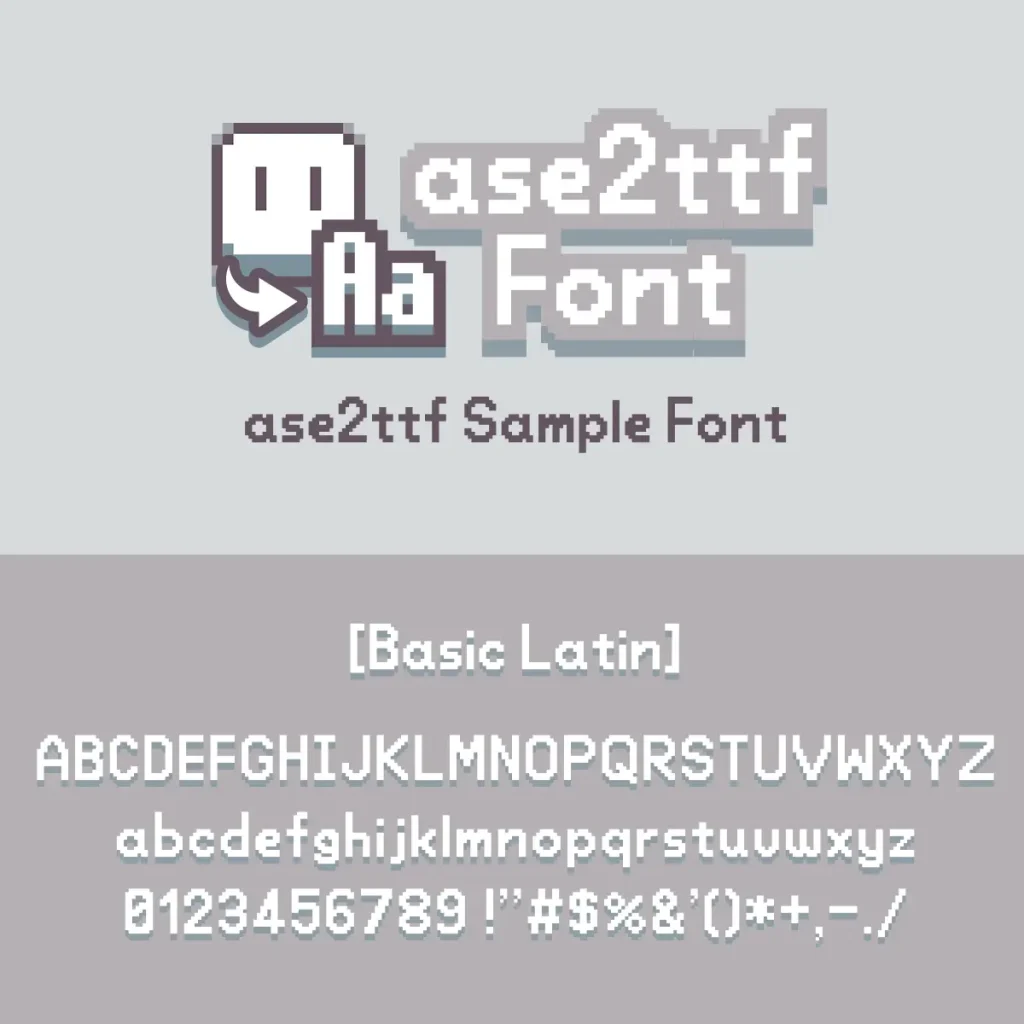
ase2ttf Font is a free, open-source pixel typeface that merges the personality of handwriting with a clean, systematic look.
It is a good choice for projects that require a legible, pixel-based typeface with a friendly and unique character.
You can use this font for digital interfaces, retro-style graphics, or any application where a distinct pixel aesthetic is desired.
Features
- Includes 93 characters, covering alphanumeric characters and symbols.
- Combines a handwritten feel with a structured pixel design.